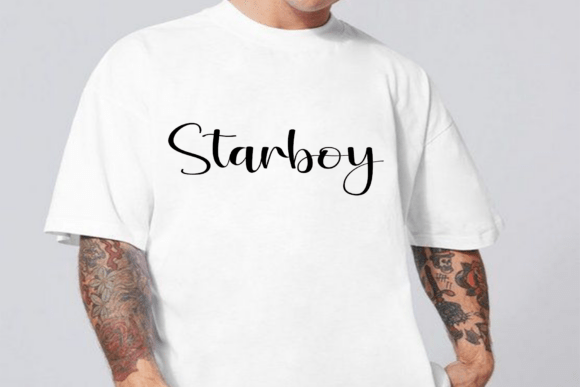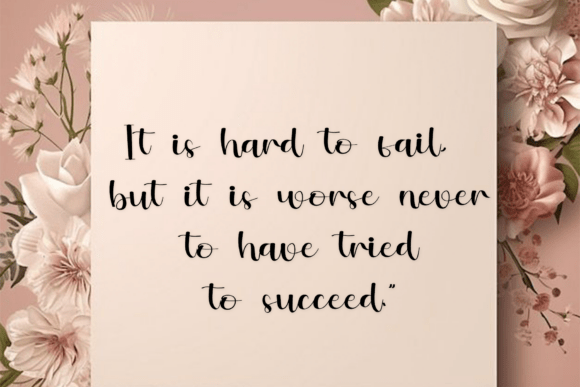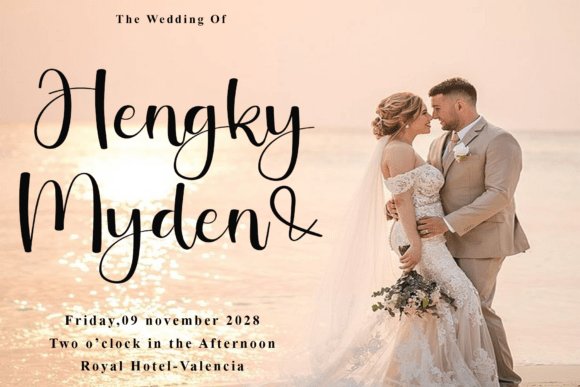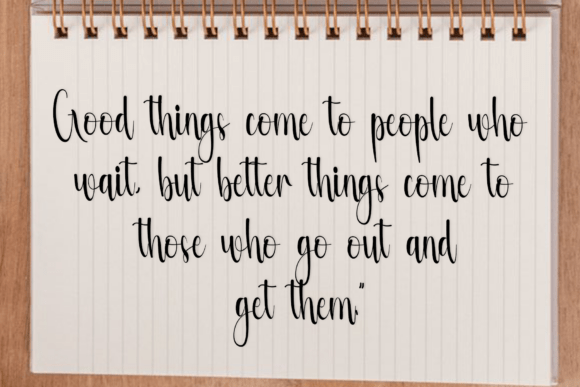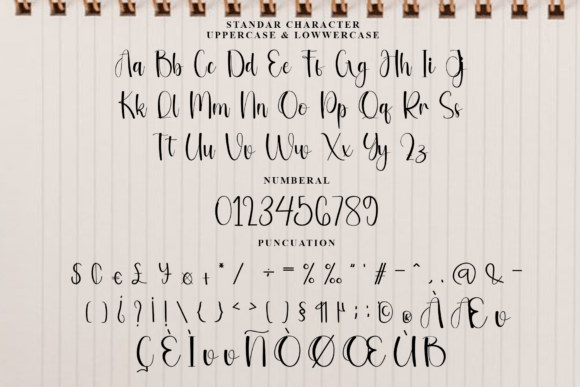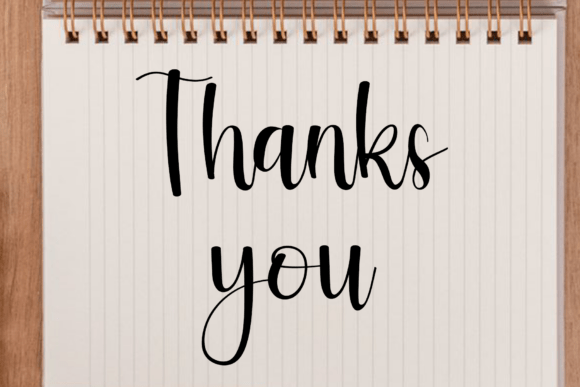
Introduction to Journal Pages Font
Journal Pages is a casual handwritten font that radiates warmth and personality.
Featuring smooth strokes, natural curves, and easy-flowing letterforms, it captures the charm of authentic handwriting with a modern, approachable feel Ideal for quotes, invitations, branding, and social media posts, it adds a personal and friendly touch to any design.
Key Features of Journal Pages Font